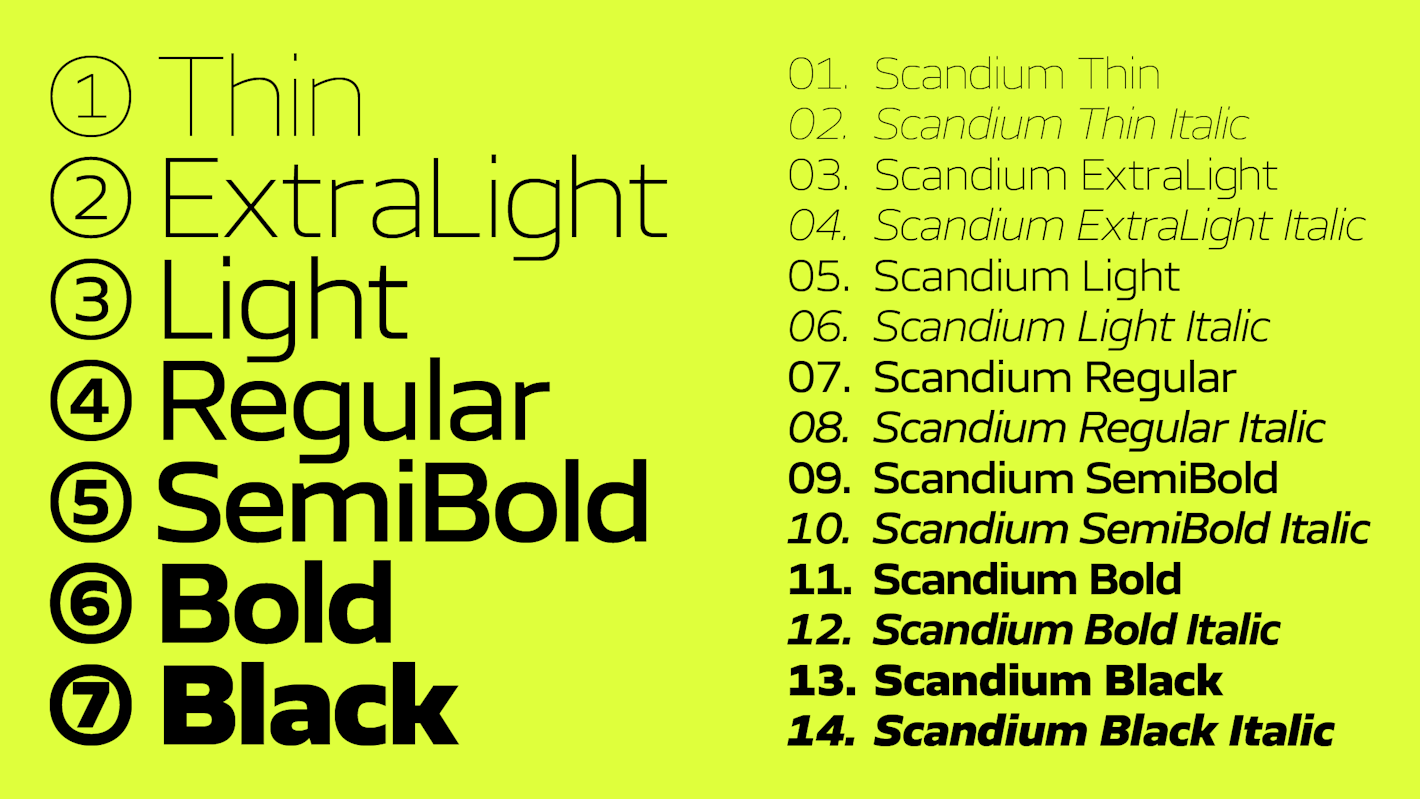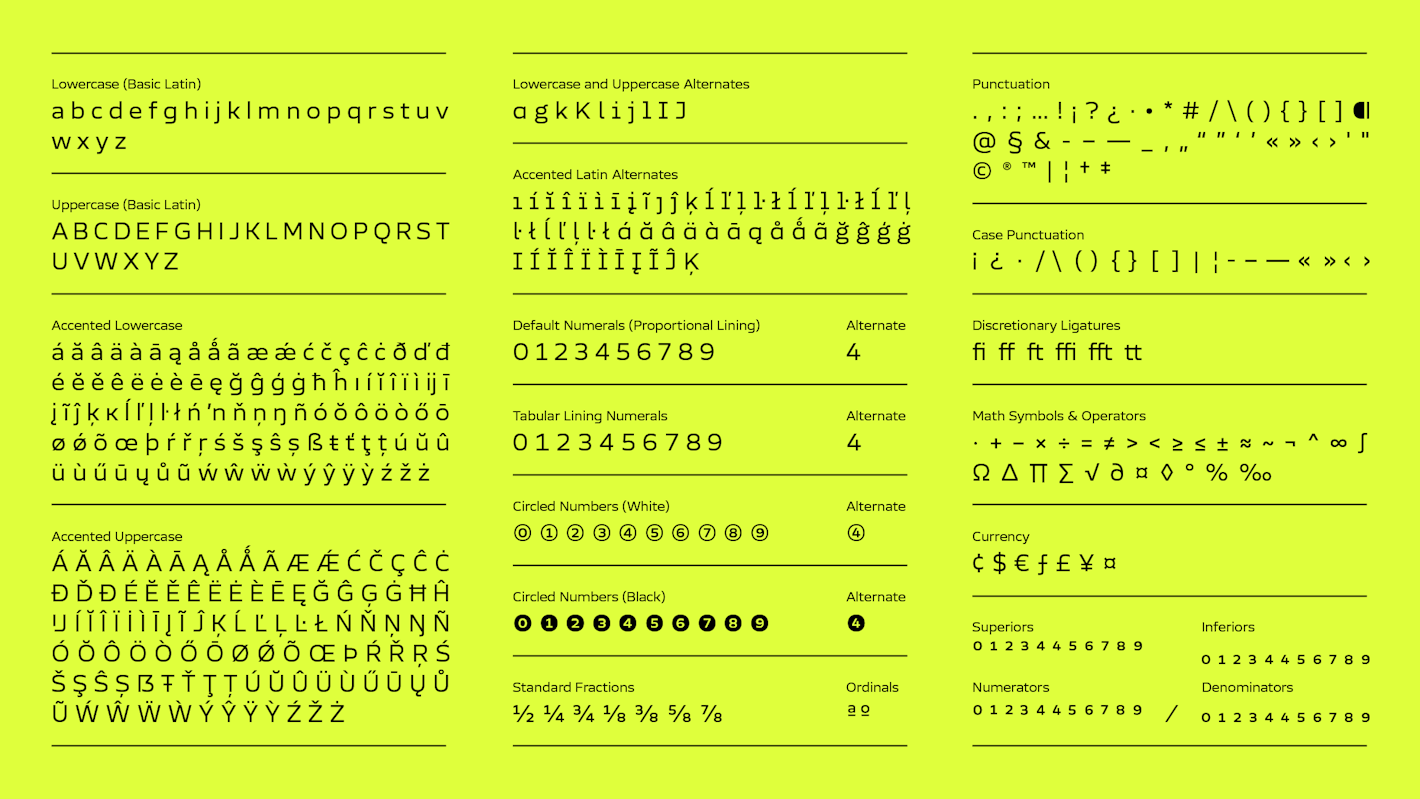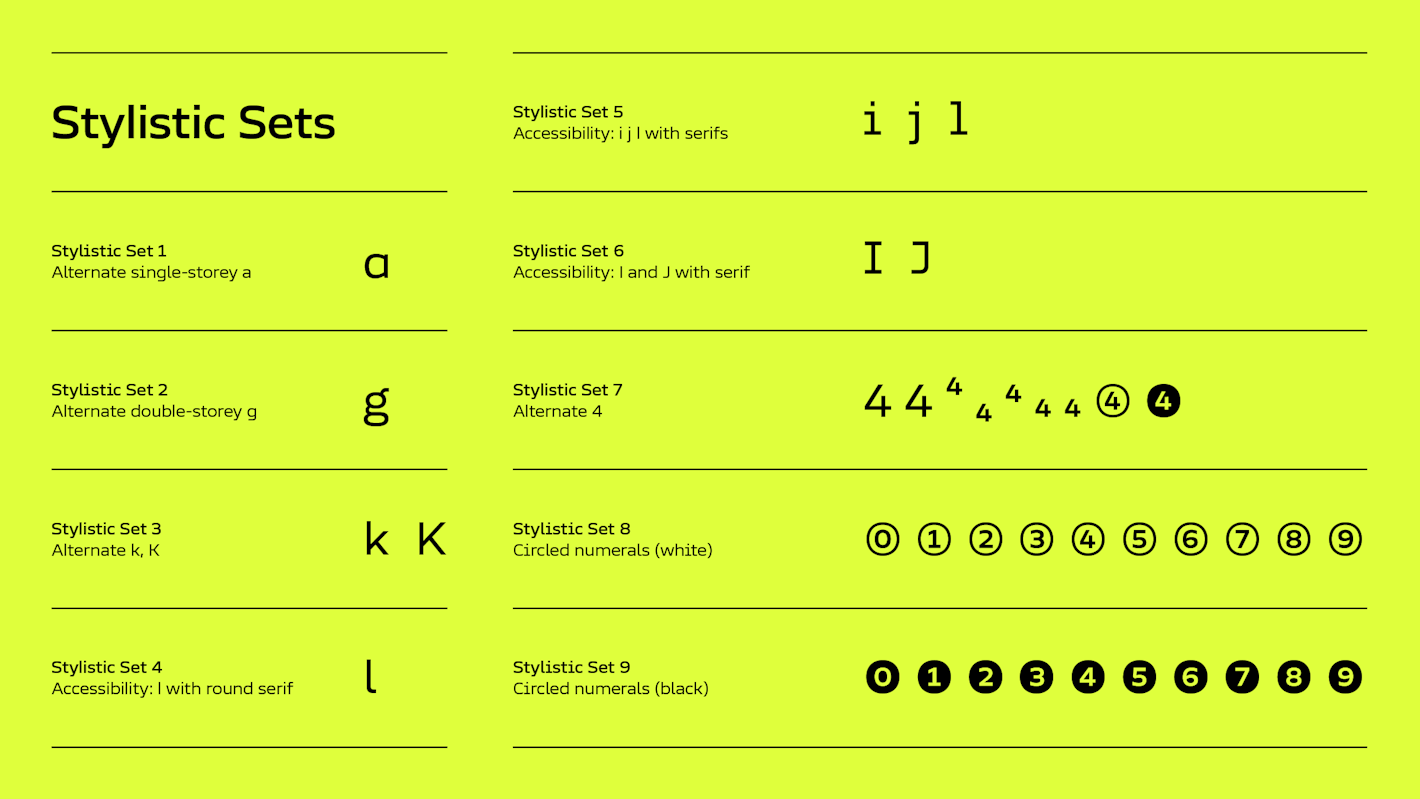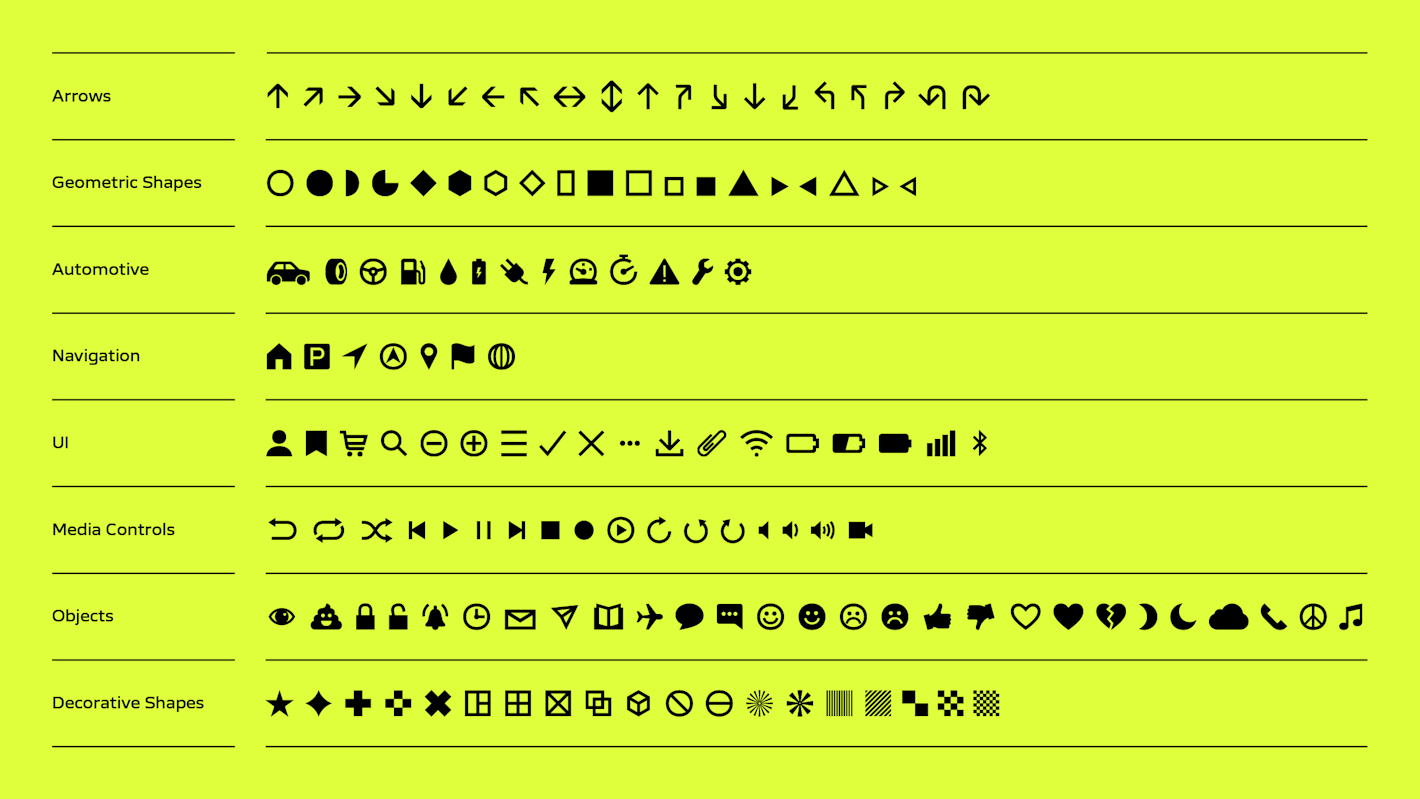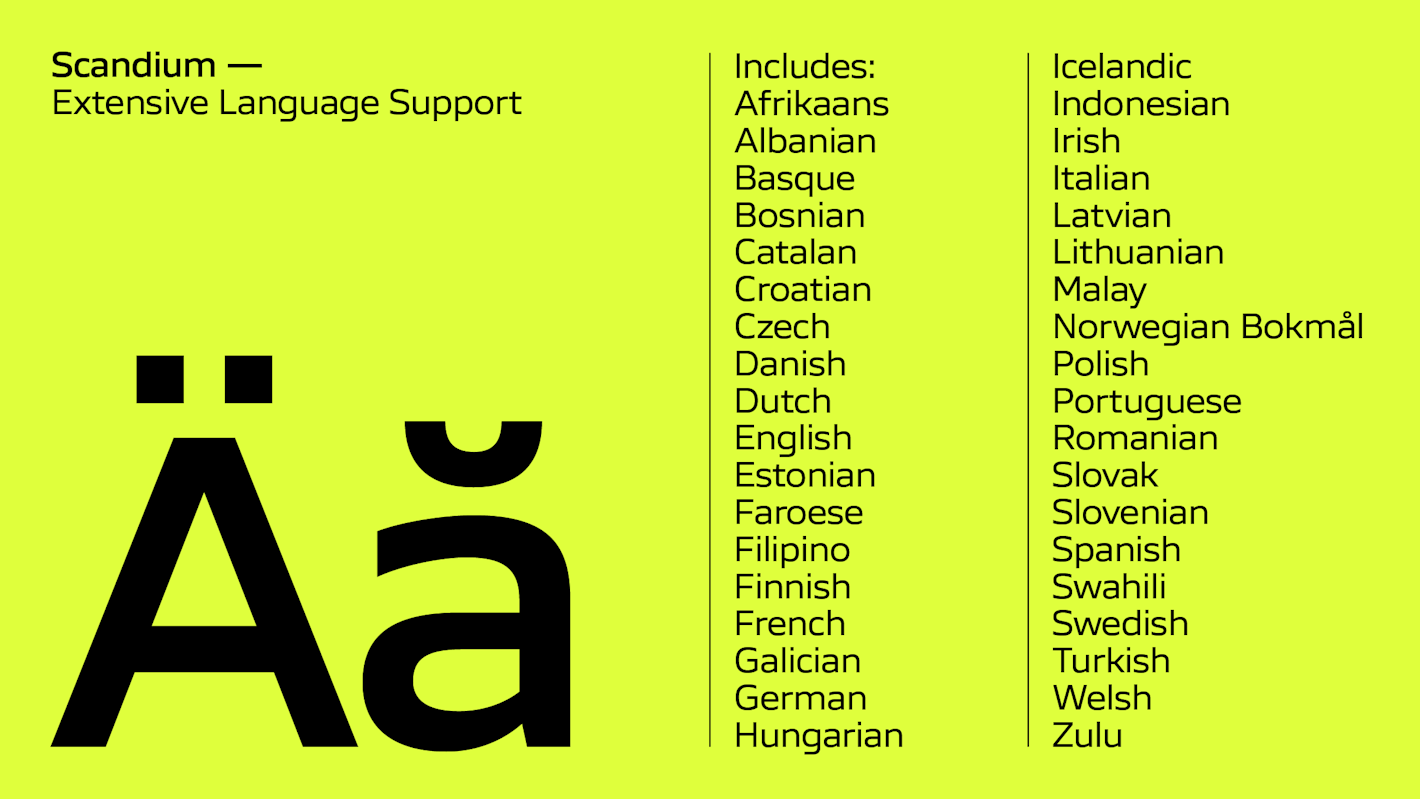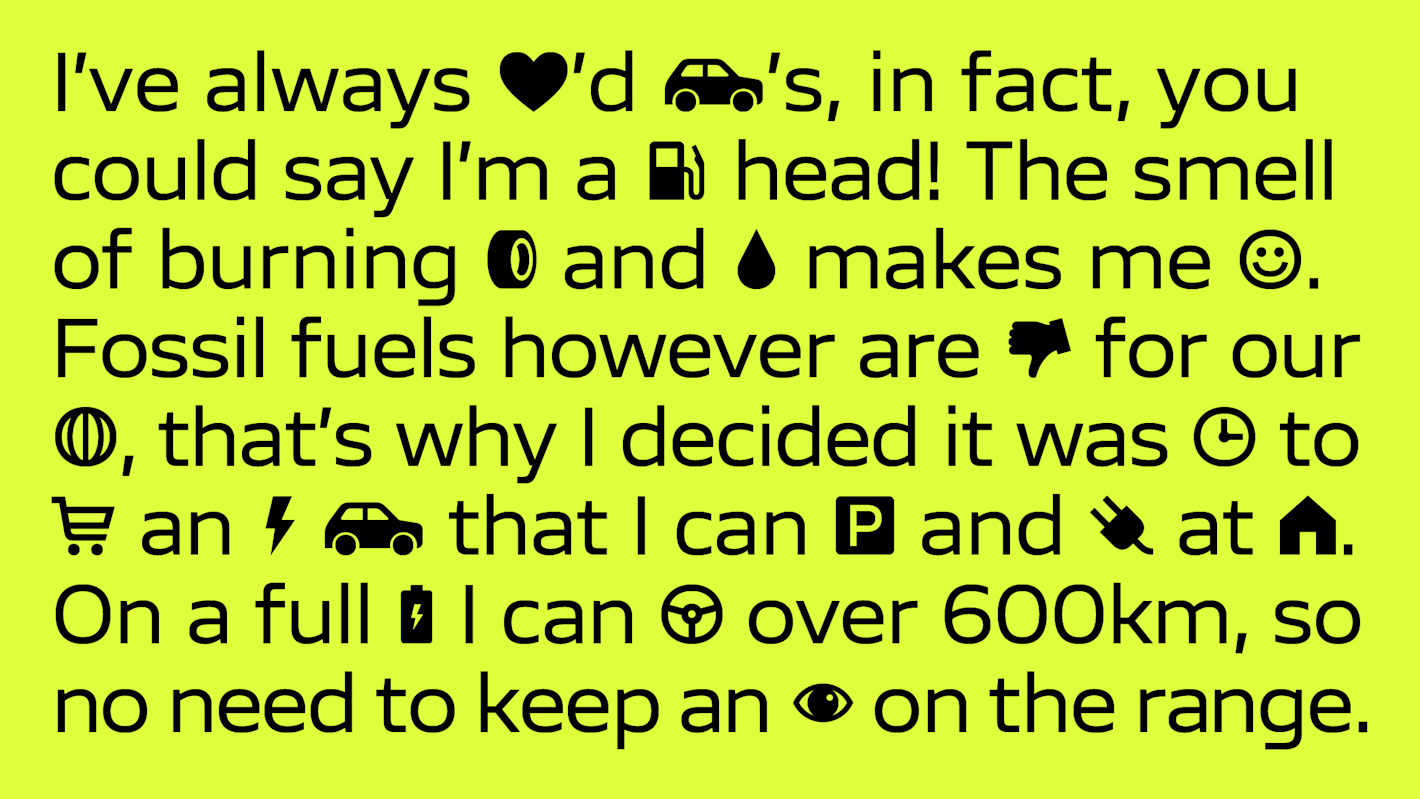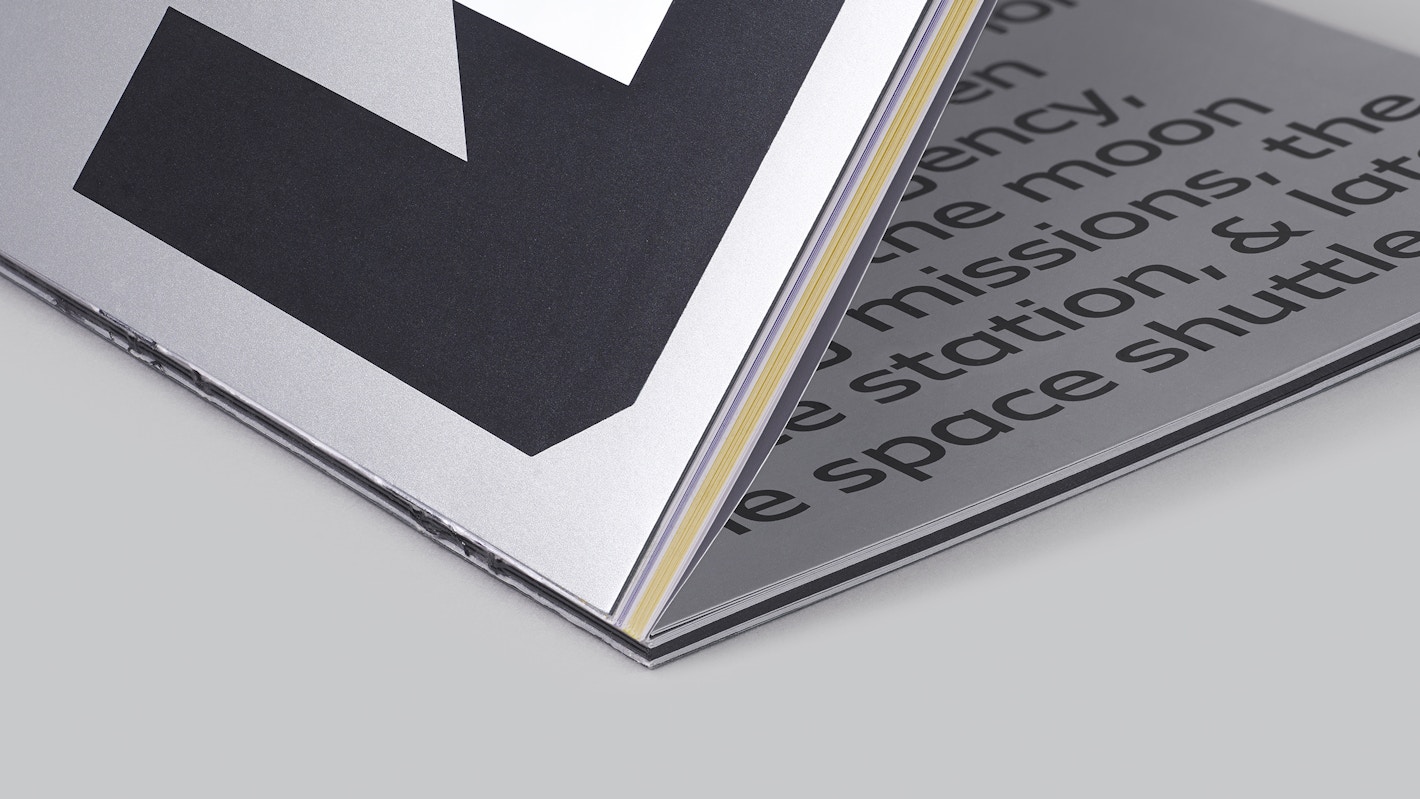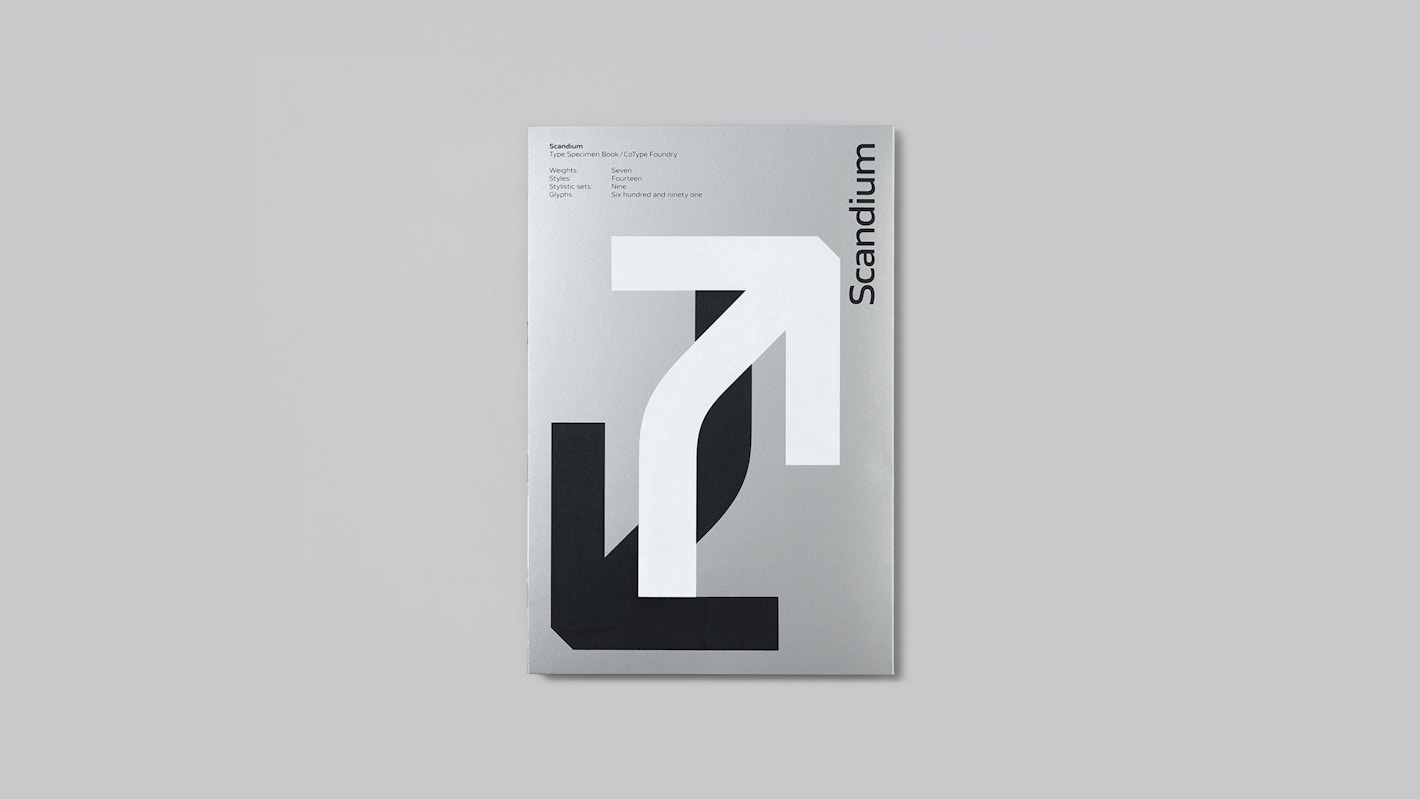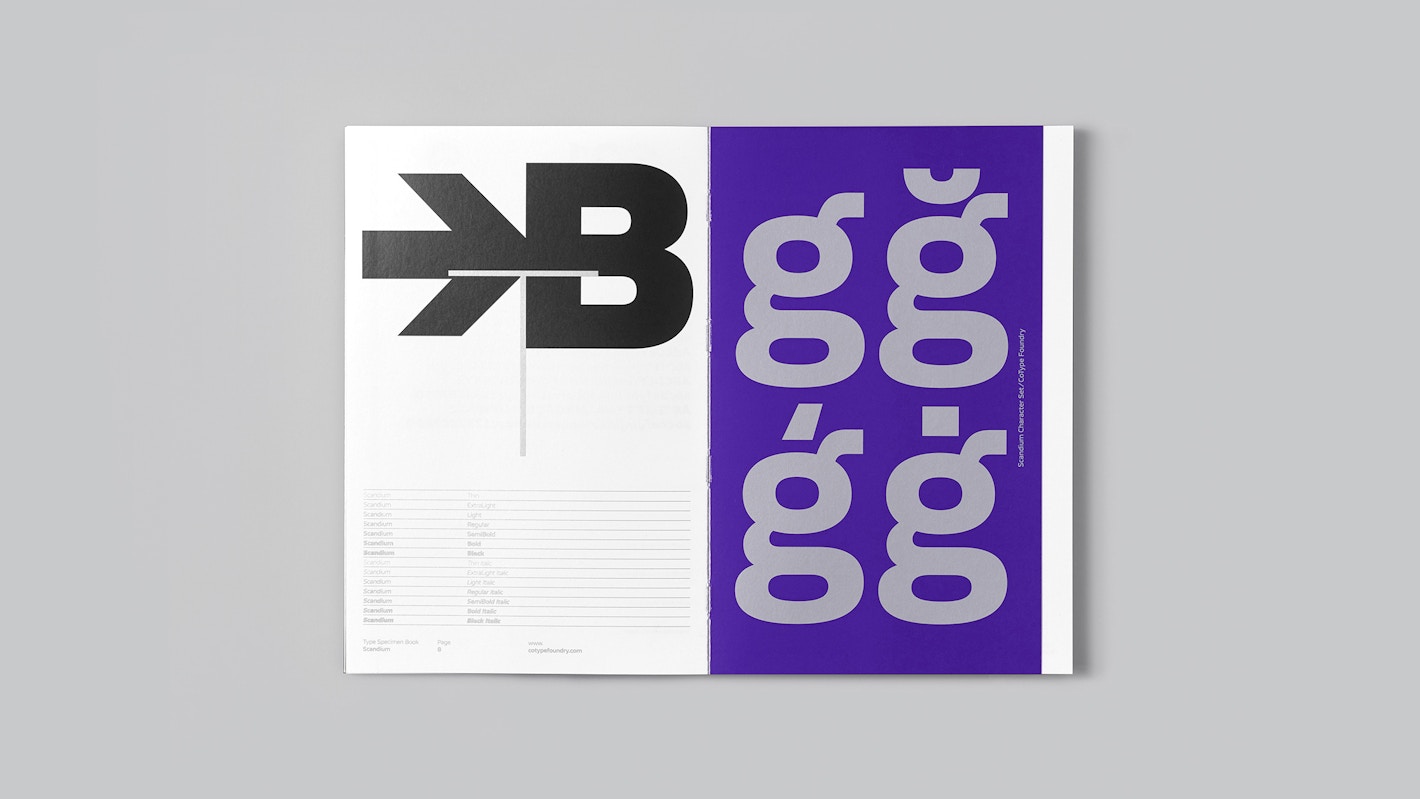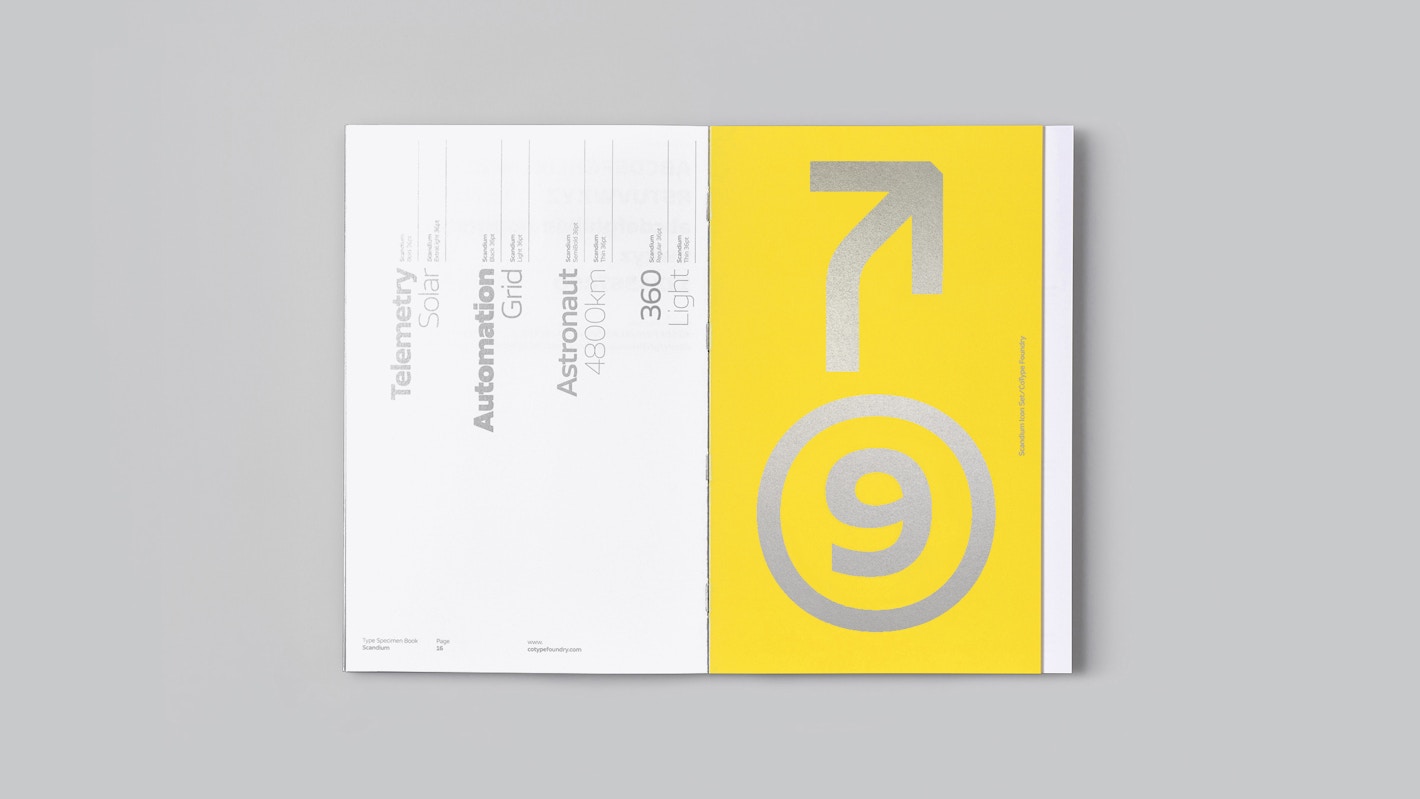
Scandium is a contemporary sans-serif with open shapes and a technical vibe, inspired by the demands of the automotive industry – openness, performance, and style. Its modestly squared curves, high x-height, and vertical terminals create a typeface that balances purpose with performance.
Ideal for automotive branding, aviation, space travel, and even luxury watches, Scandium offers a self-assured, purposeful aesthetic across its seven weights – from Thin to Black – each with matching italics. It retains a clean, technical character without feeling overengineered. For projects with stricter accessibility requirements, Scandium includes alternate characters like ‘I,’ ‘l,’ ‘i,’ and ‘j’ with serifs for enhanced readability. For even greater control, variable font technology enables precise fine-tuning of weight and italic angle.
Scandium goes beyond letters, offering a versatile set of icons tailored for in-car systems and adaptable to broader applications. These include web UI elements (shopping carts, user profiles), media controls (play, pause, shuffle), EV symbols (charging icons, battery levels), and navigation tools (directional arrows, location pins). To inject a playful element, Scandium even features emojis – from smileys to hearts and beyond.